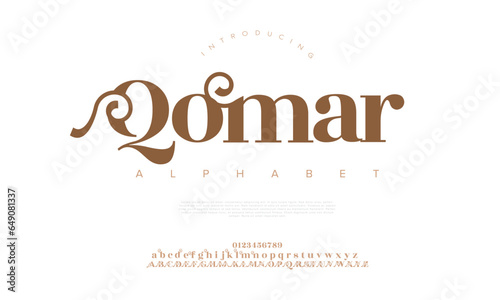
Qomar premium luxury elegant alphabet letters and numbers. Elegant wedding typography classic serif font decorative vintage retro. Creative vector illustration